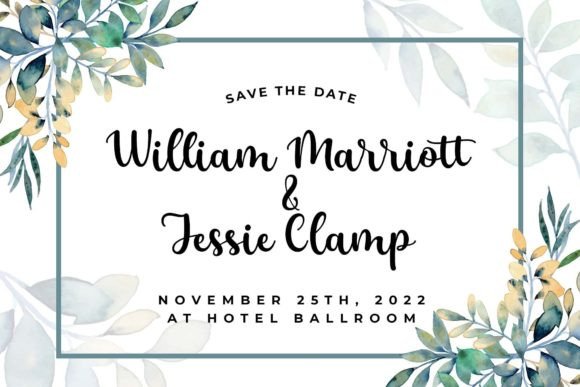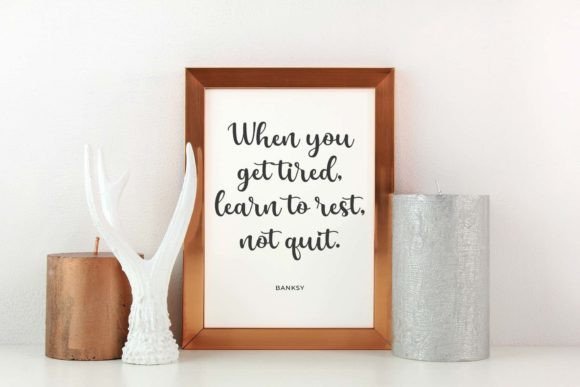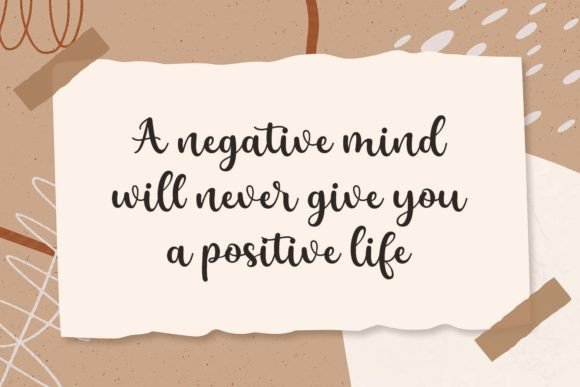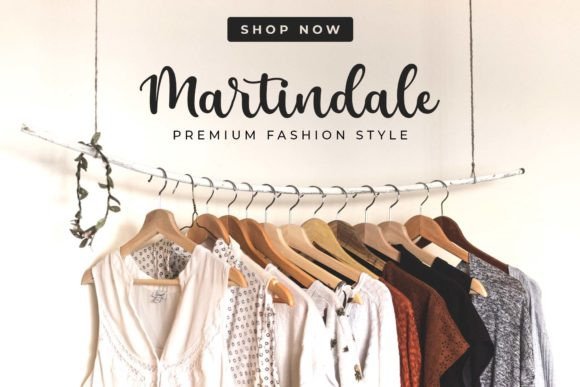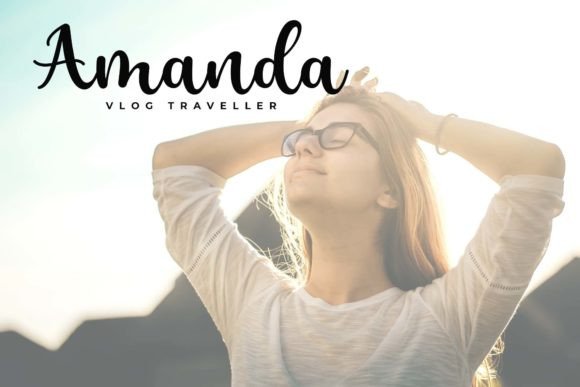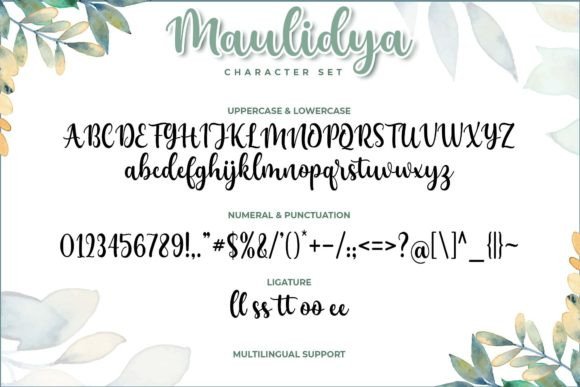
Introduction to Maulidya Font Font
Fonts play a crucial role in design, and the Maulidya Font font is a typeface that brings both character and versatility to any project. Whether you’re working on a branding project, a website, or a print design, the Maulidya Font font offers a unique style that can elevate your work.
Maulidya is an elegant script font.
Use it for any design projects that require a charming appearance .
Key Features of Maulidya Font Font
Why Choose Maulidya Font Font?
The Maulidya Font font is more than just a typeface – it’s a design tool that helps you communicate your message with style and clarity. Its unique character set and versatile design make it suitable for a wide range of applications, from elegant invitations to bold headlines.
With its carefully crafted letterforms and balanced proportions, the Maulidya Font font ensures readability and visual appeal across all mediums.
What makes Maulidya Font font special?
The Maulidya Font font stands out with its unique design, exceptional readability, and versatility across various design applications.